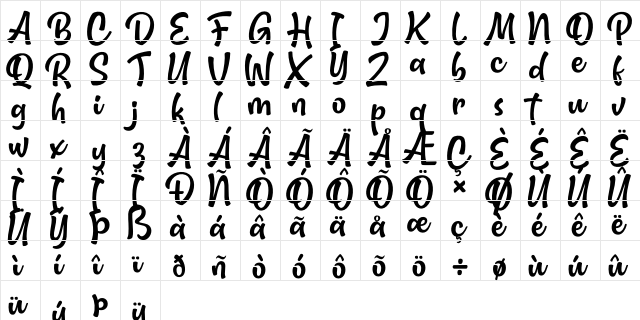
Velfo Regular
Design Context for Velfo Typeface
Velfo is a composed and adaptable typeface that performs quietly and consistently across a wide range of design contexts.